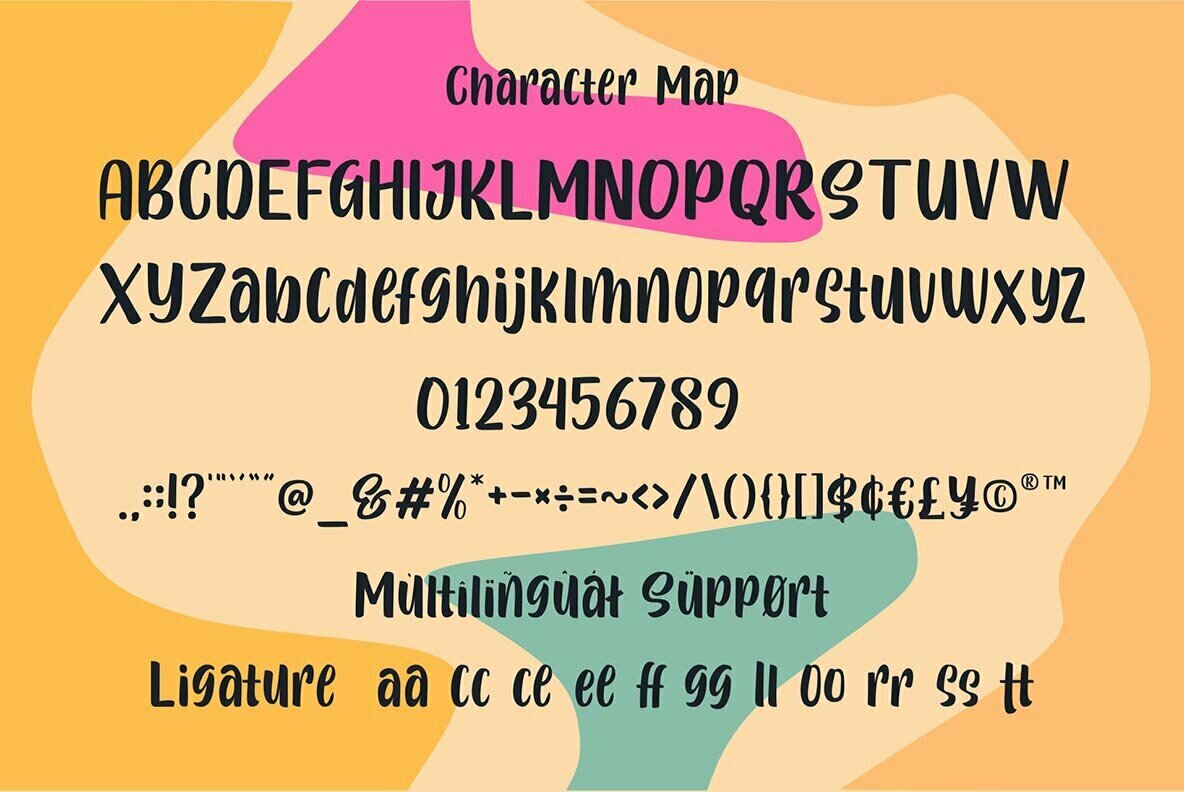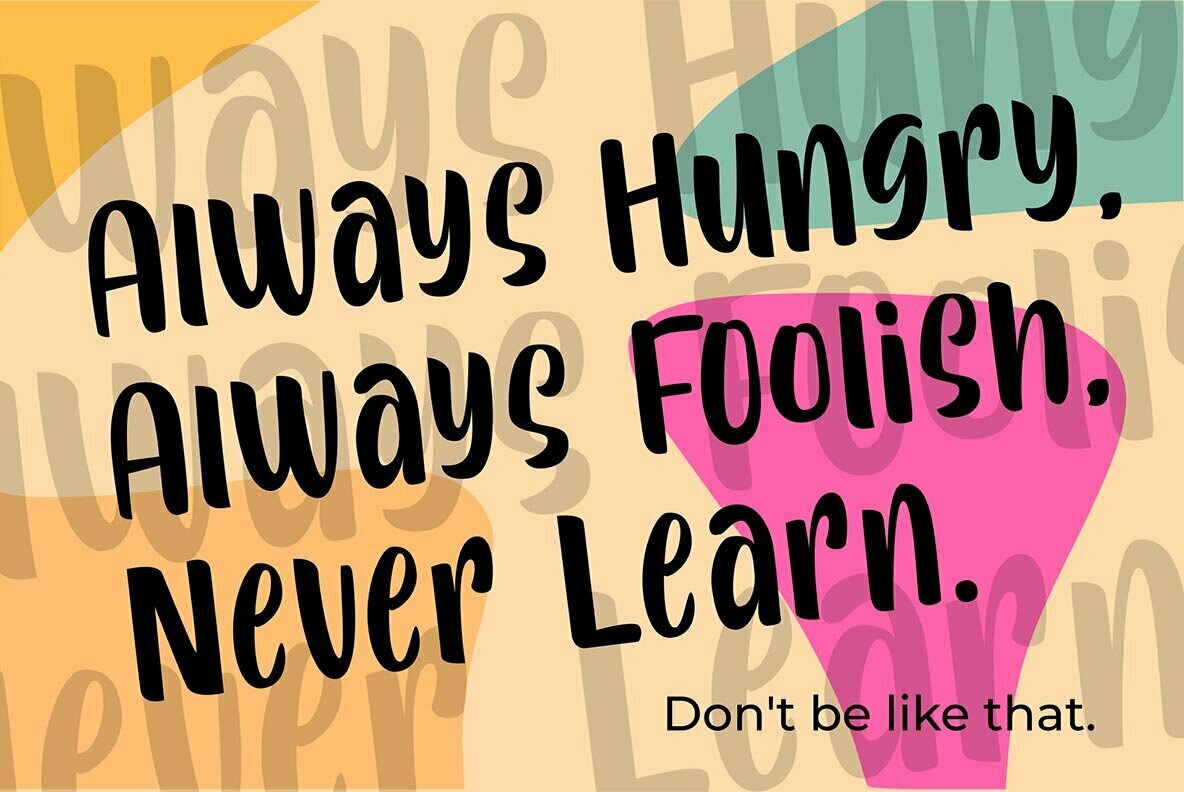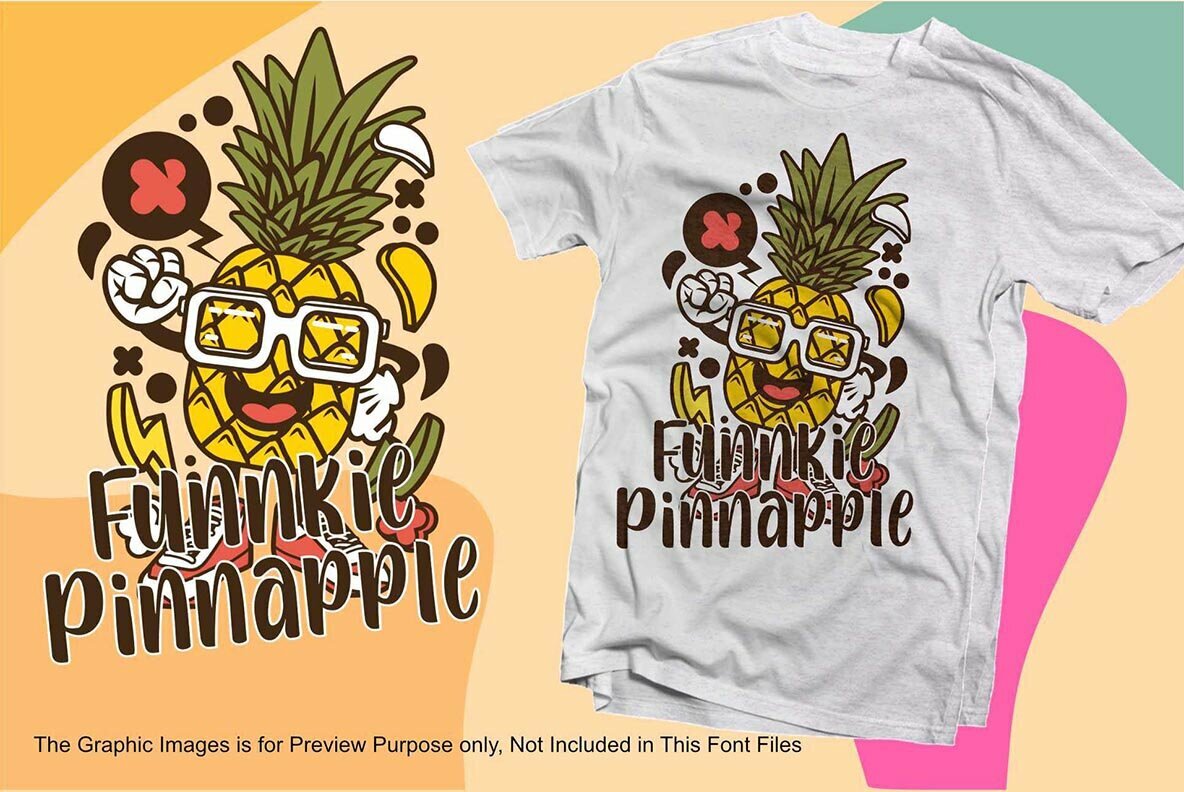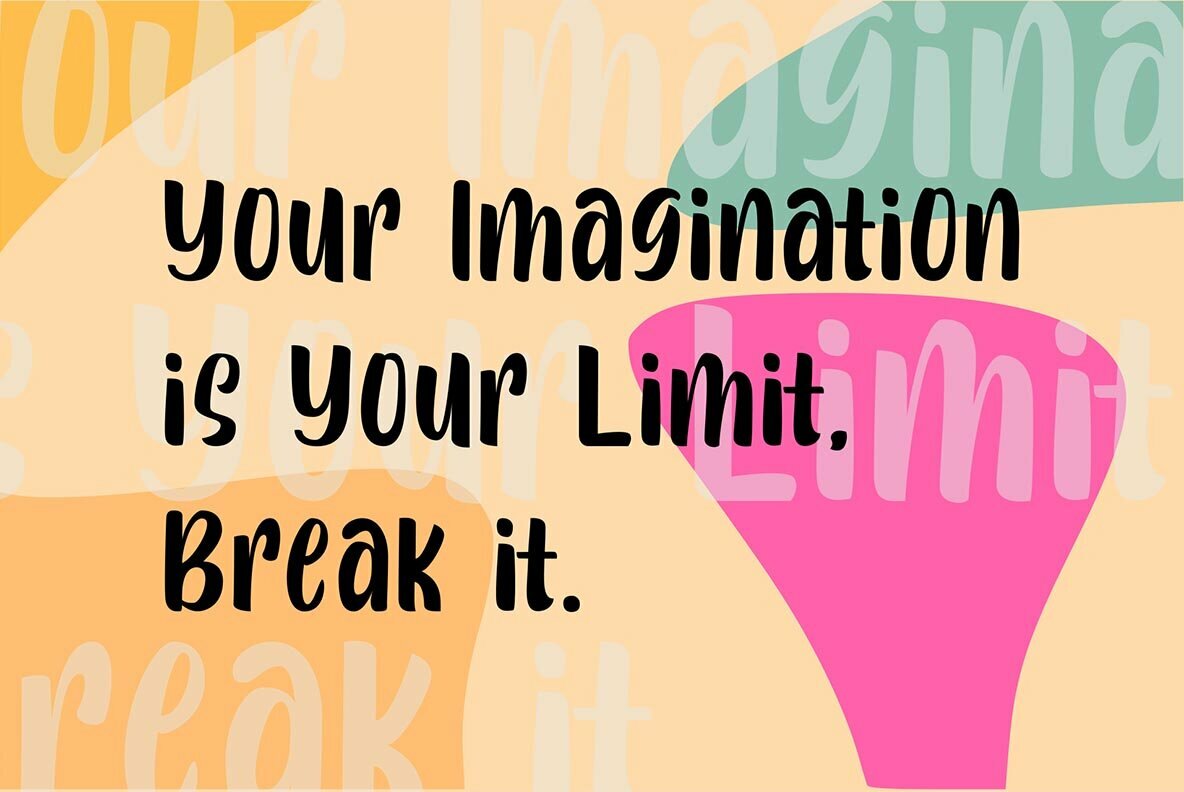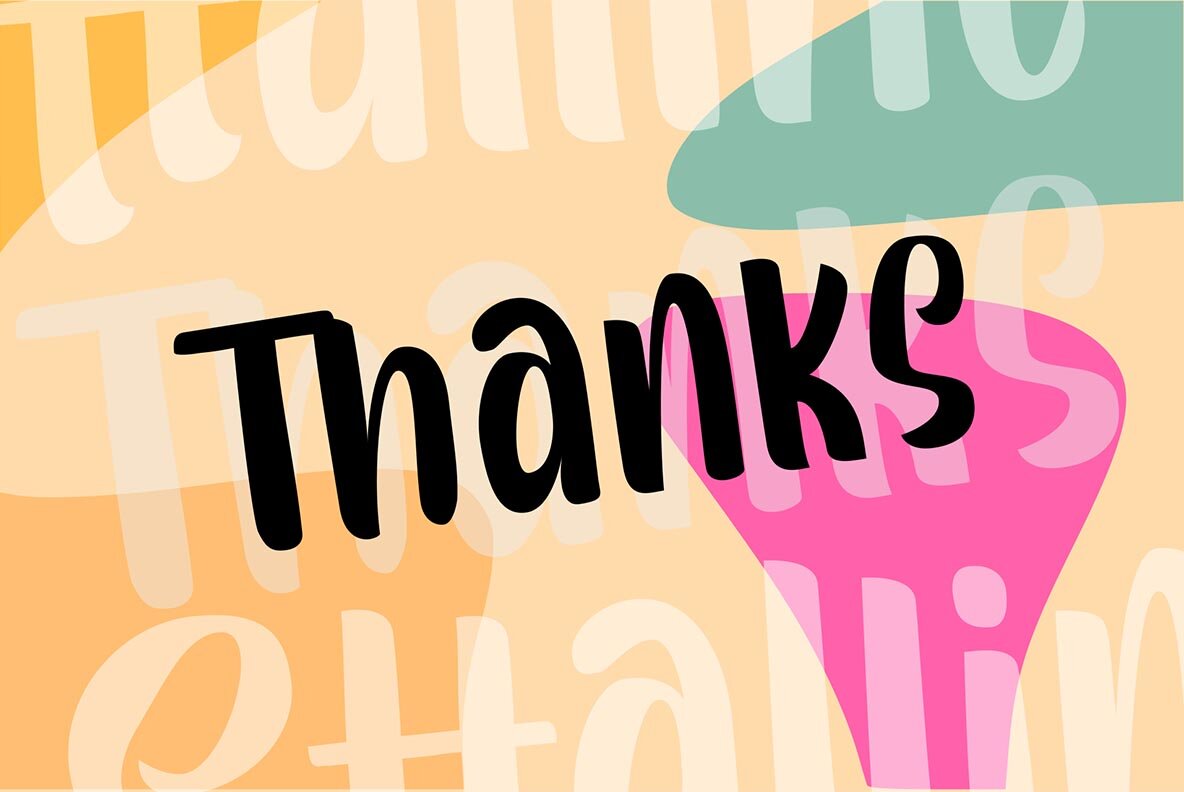
Sttalline Font
Sttalline
Sttalline, a playful and quirky font, made by etching on paper with love, then digitized with care,
minimize the node so it's good for craft in circuit design,
Sttalline fonts are perfect for design needs with cheerful nuances, very suitable for use in t-shirts, for quotes on mugs, etc.